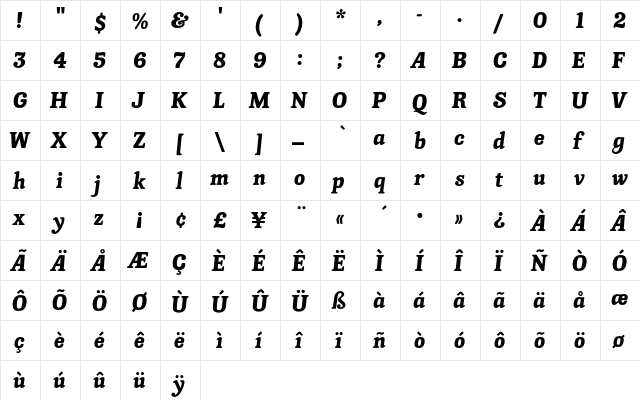
KnightsbridgeEF Regular
Design Context for KnightsbridgeEF Typeface
KnightsbridgeEF offers clean, dependable letterforms without strong stylistic allegiance, making it a practical choice for designers who need flexibility.